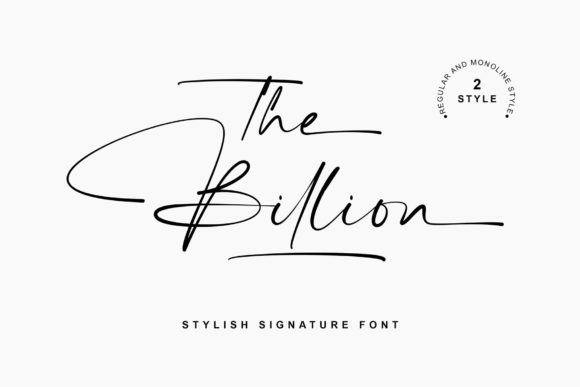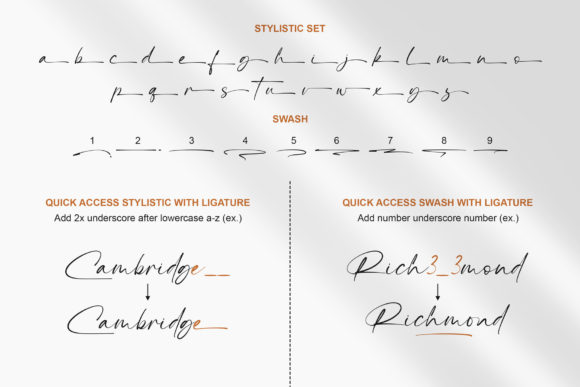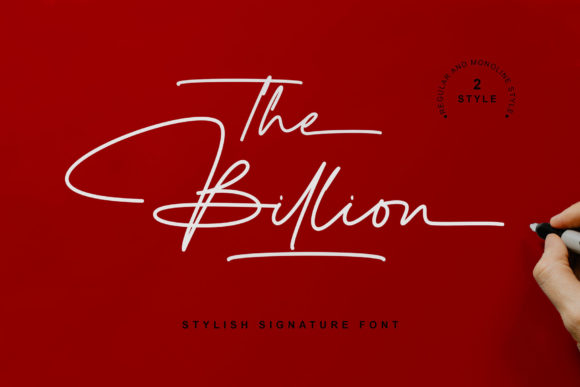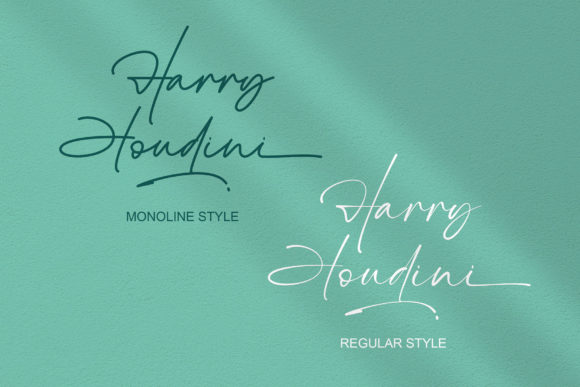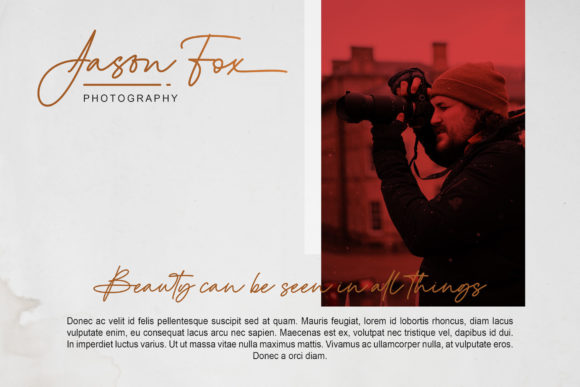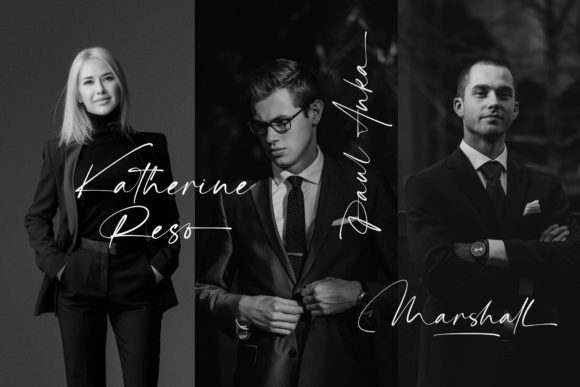
The Billion Font
About The Billion Font
The Billion is a fashionable, simple and clean script font. It is PUA encoded which means you can access all glyphs and swashes with ease!